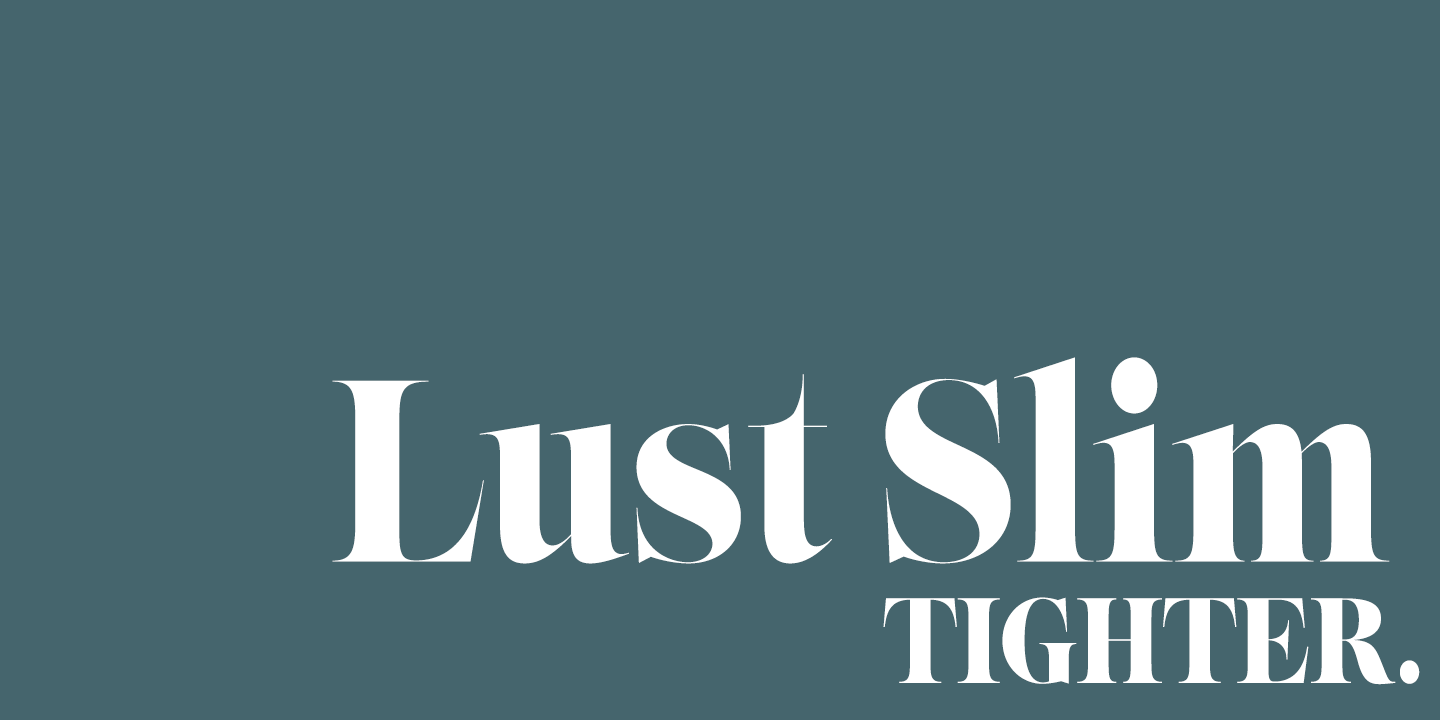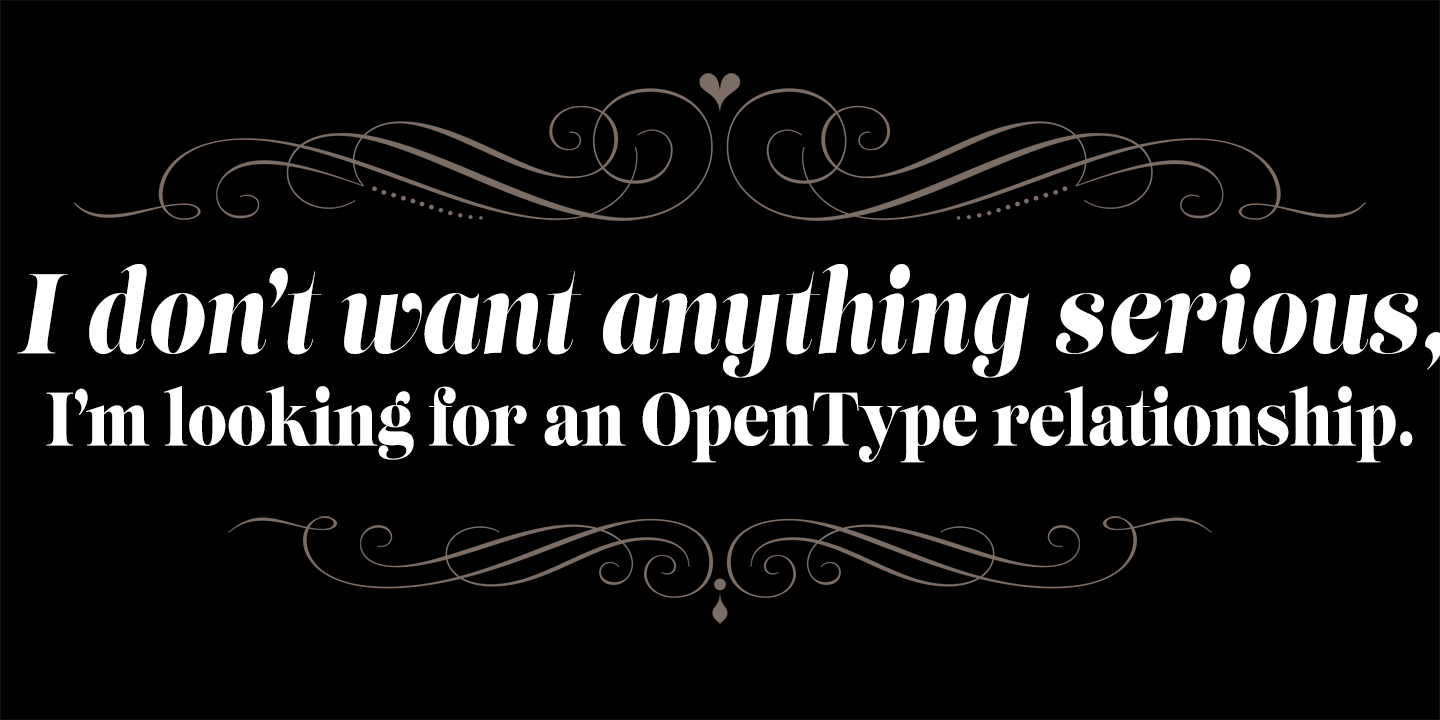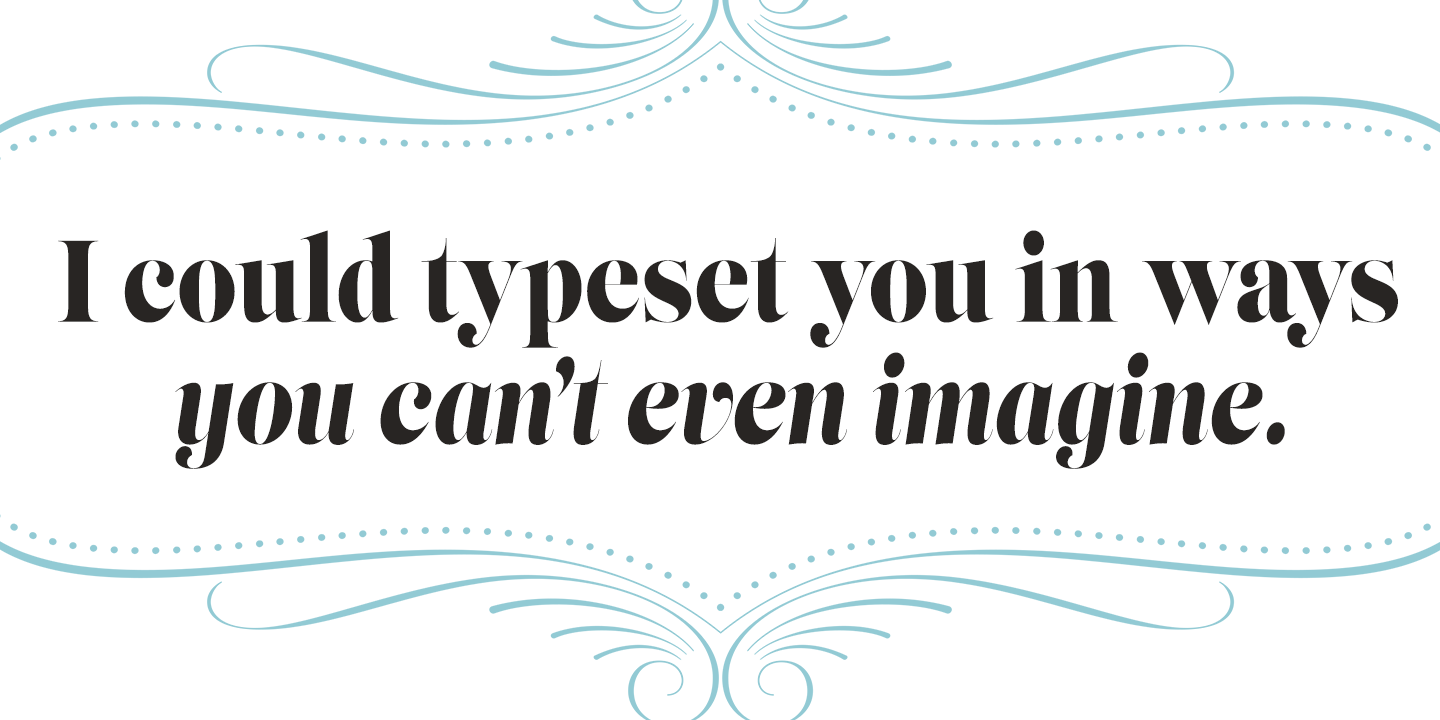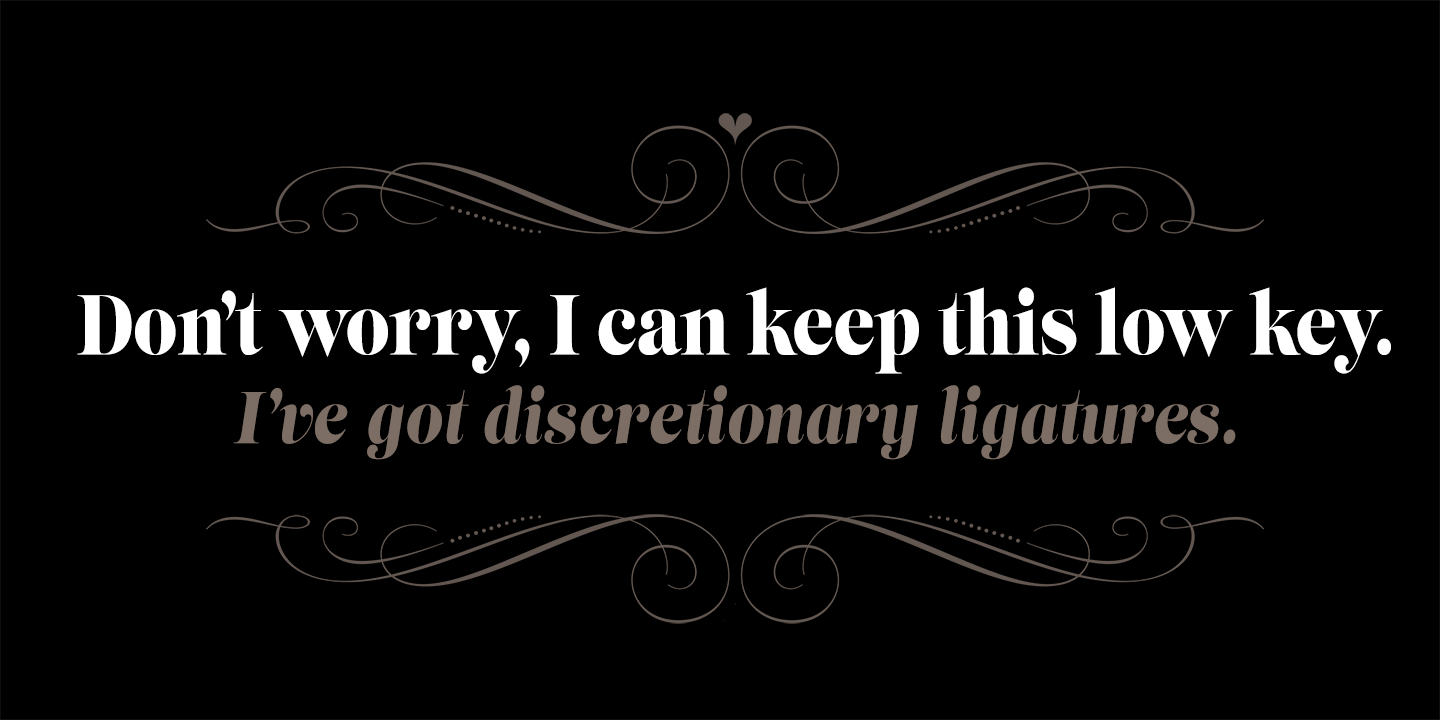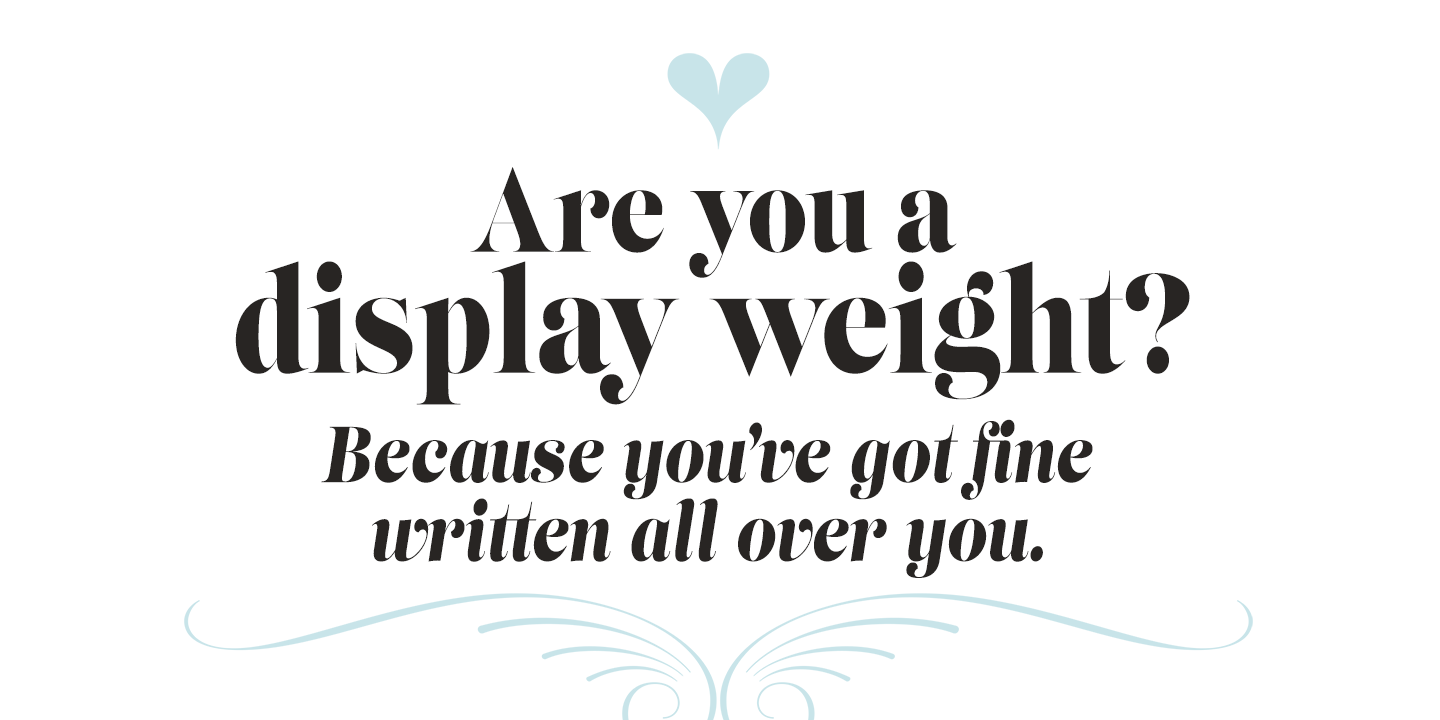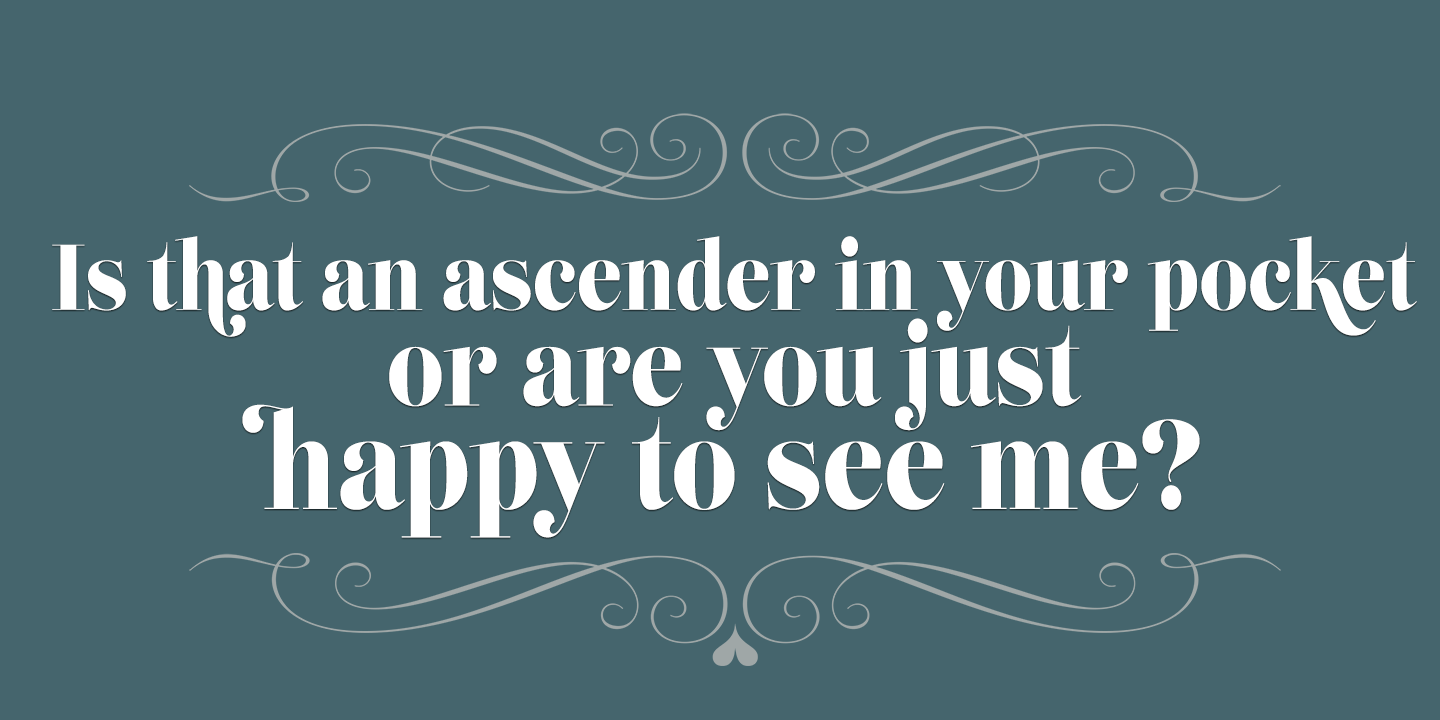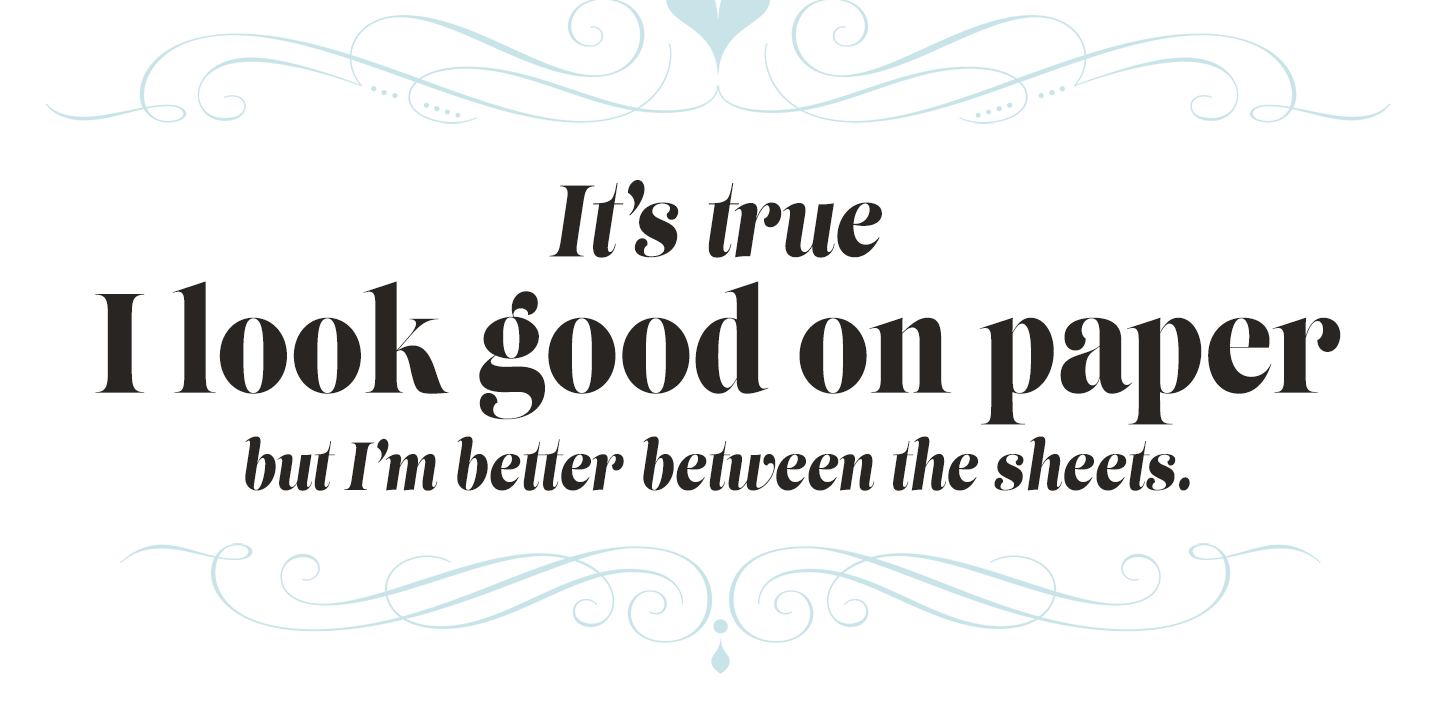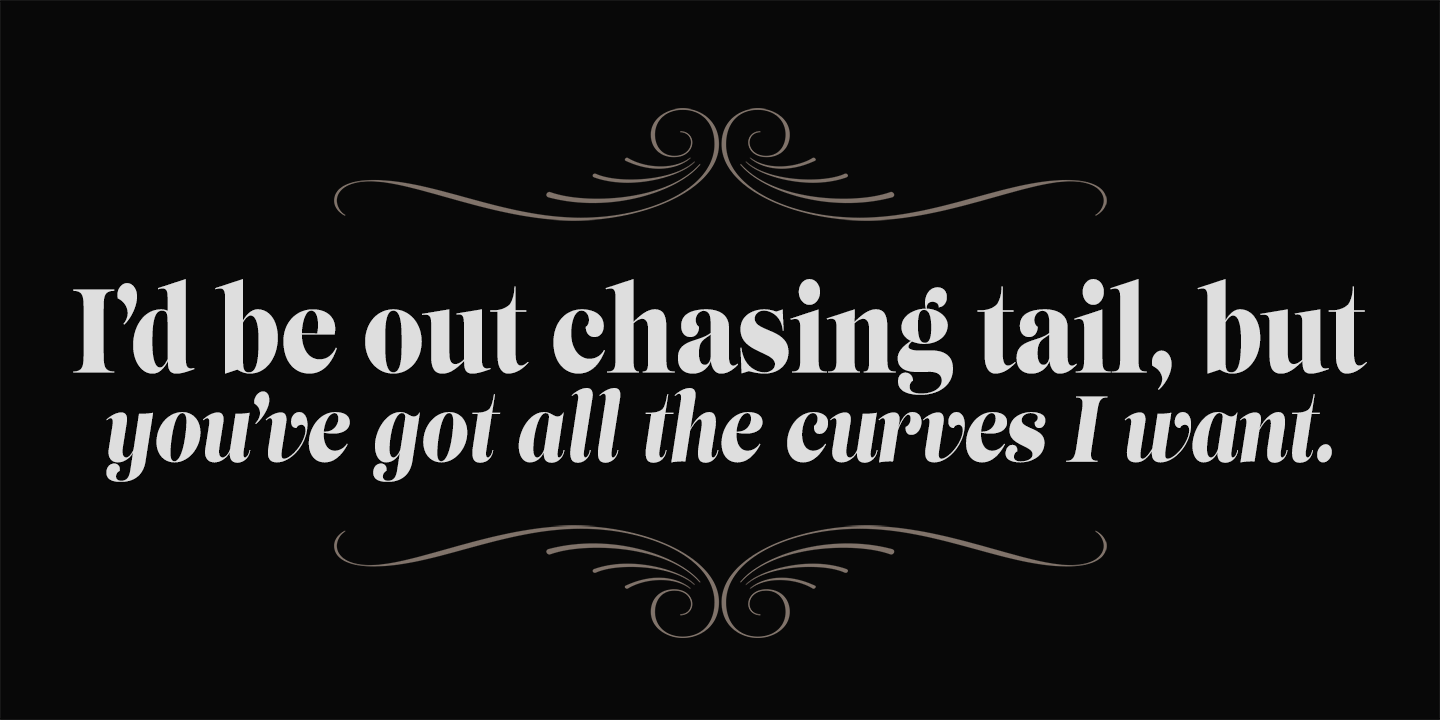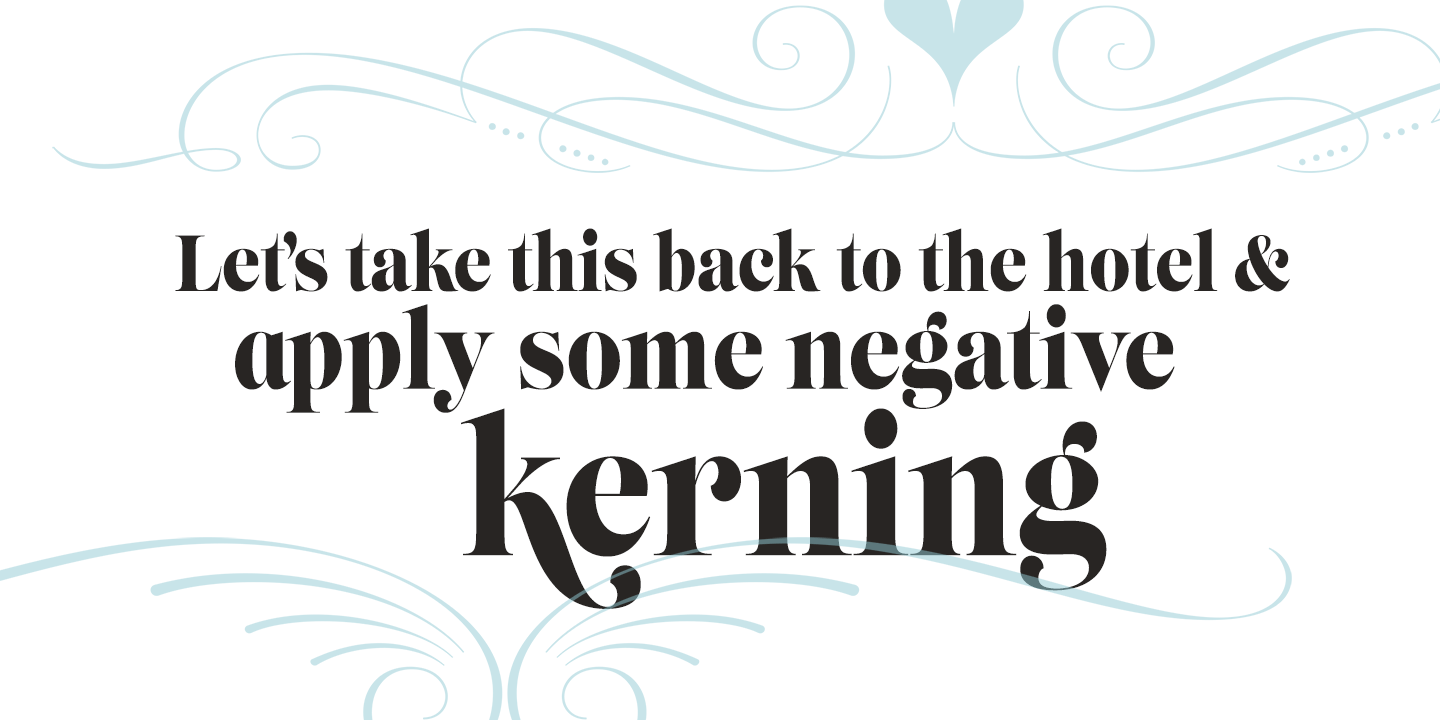
Lust Slim
The original Lust (and later, Lust Script) was my overly indulgent attempt to infuse wanton sensuality in a typeface. I wanted to create an over the top, curvy serif that was a little sexy. Lust Slim signifies a maturation of the individual families as it branches out into further useful typographic indulgences. Lust Slim is just that, slimmer, more compact, more economical of space. It works lock-step with Lust and Lust Script. Both weights and each variant still appear? just optimized for a narrower setting. Everything that was under the covers before, still remains?with a few surprises?Lots of contrast, almost demure, coy contrast mixed with the flowing curves of a woman's body, incomplete, almost teasing ball terminals, and serifs that went on forever'so sharp they would draw blood if you touched them.
WARNING! I cannot stress this enough. Please know what you are getting into with this typeface. Like a supermodel, it can't be squeezed into every situation. It needs room and size to breathe. The regular weights can support 36-point or higher settings, whereas the display weights shine above 72-point (preferably 100-point).
Lust Slim is packed with alternates to play with? enough to turn you on and satisfy. Utilizing the OpenType features (and Glyph palette) wisely will have you weaving through endless variations of Stylistic, Contextual, Titling, Historical and Swash alternates? and the Italic styles feature a Contextual system that allows you to switch seamlessly between Didone and Scotch traits in order to better complement the upright variants.